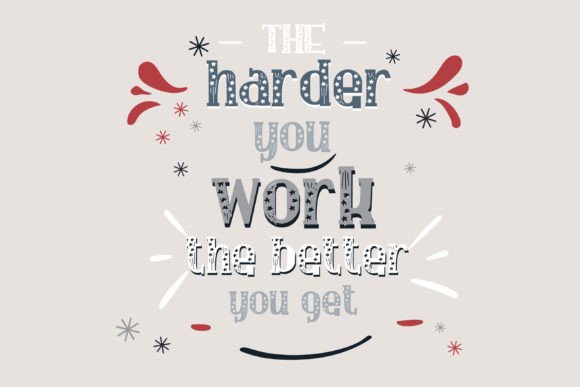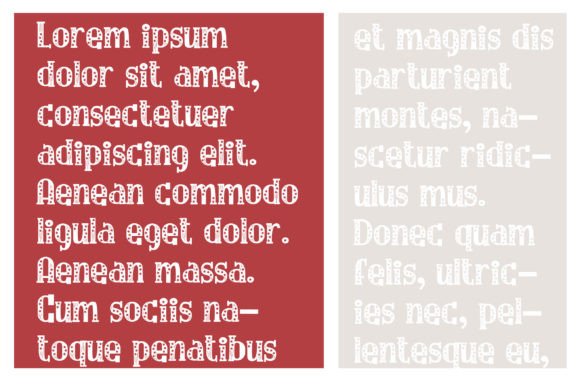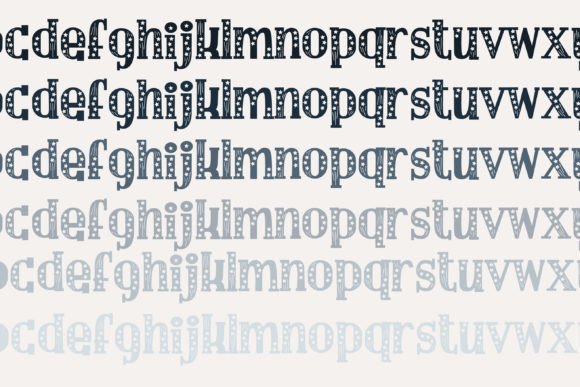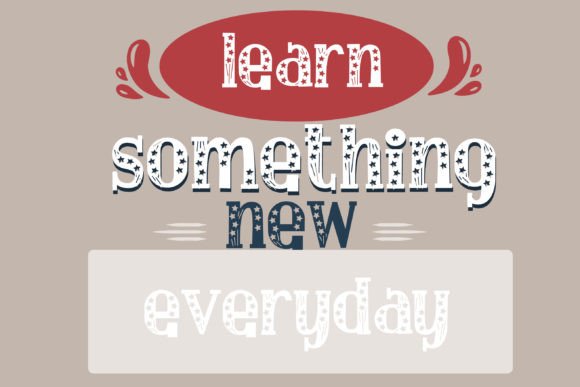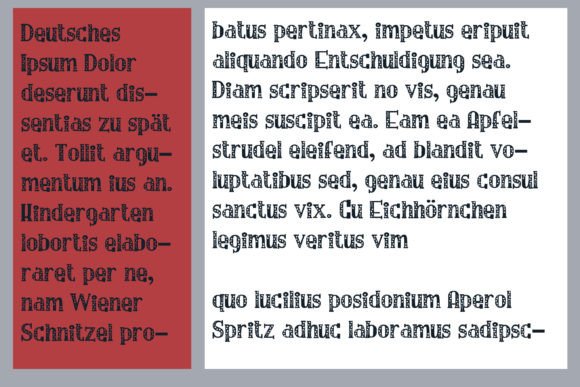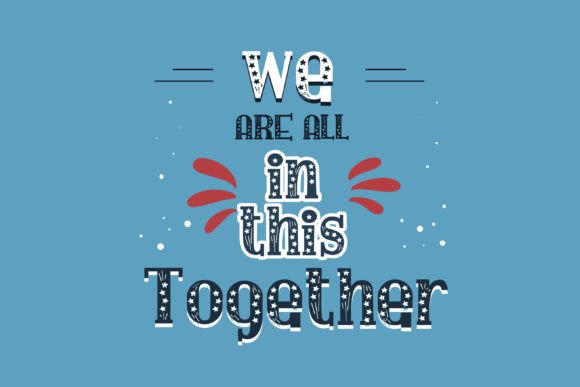
American Marble Font - Featured Image
The Perfect Union of Hand-Crafted Elegance and All-American Spirit
As a designer, there’s nothing quite like the thrill of finding that perfect font to bring your vision to life. For me, it was the moment I stumbled upon the American Marble Font – a hand-crafted serif that perfectly captures the essence of the American spirit. With its intricate details and subtle nods to the stars and stripes, this font is more than just a typeface – it’s an experience.
Designed to evoke the feeling of a handwritten letter from a loved one, the American Marble Font is the perfect choice for any project that requires a touch of warmth and personality. Whether you’re designing invitations, greeting cards, or any other item that needs a little extra love, this font is sure to deliver. And for designers, the value lies in its versatility and timeless appeal – a true classic that will never go out of style.
• Unique Characteristics: Distressed, worn, and vintage aesthetic, with subtle texture and imperfections, reminiscent of antique marbles
Designer Review: American Marble Font
Overall, I found the American Marble Font to be a decent choice for certain projects. Here’s what I think works well:
• ✨ Unique aesthetic: The font’s distressed, hand-painted look gives it a distinct character that’s perfect for vintage or retro-themed designs.
• ✨ Versatility: American Marble Font can be used for a wide range of applications, from signage and branding to packaging and advertising.
• ✨ Readability: Despite its distressed appearance, the font remains legible and easy to read, even at smaller sizes.
• ⚠️ Limited font sizes: The font starts to lose its distressed look and becomes too smooth at larger sizes, which can be a problem for headings or titles.
• ⚠️ Lack of international support: American Marble Font may not be optimized for non-English languages, which could lead to display issues or inconsistencies.
• ⚠️ Limited font weights: The font only comes in a few weights, which can make it difficult to achieve the desired level of emphasis or hierarchy in a design.
Overall, American Marble Font is a solid choice for designers looking for a unique, vintage-inspired font. However, its limitations should be carefully considered before choosing it for a project.
Tips for Getting the Most Out of American Marble Font
To get the most out of American Marble Font, use it for:
• Creating vintage-inspired designs.
• Adding a touch of nostalgia to your projects.
• Designing for print materials such as business cards and brochures.
American Marble Font is commonly used for:
• Wedding invitations and stationery.
• Vintage-themed party decorations and invitations.
• Old-timey advertising and branding materials.
Alternatives to American Marble Font
1. Bickham Script
Bickham Script is a elegant and refined script font that is perfect for formal or luxury branding. It has a more sophisticated feel compared to American Marble Font, which makes it suitable for high-end products or services. Bickham Script is ideal for creating a sense of tradition and sophistication.
Comparison: Bickham Script has a more refined and elegant feel compared to American Marble Font, which has a more playful and vintage feel.
Great Vibes is a modern and elegant script font that is perfect for creating a sense of luxury and sophistication. It has a more relaxed and casual feel compared to American Marble Font, making it suitable for branding that requires a sense of approachability and friendliness. Great Vibes is ideal for creating a sense of high-end quality without being too formal.
Comparison: Great Vibes has a more modern and relaxed feel compared to American Marble Font, which has a more vintage and playful feel.